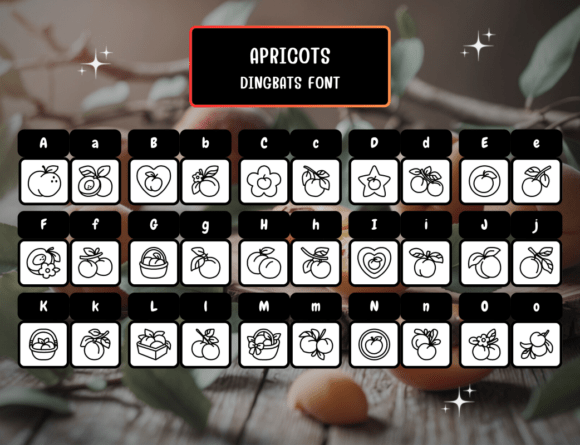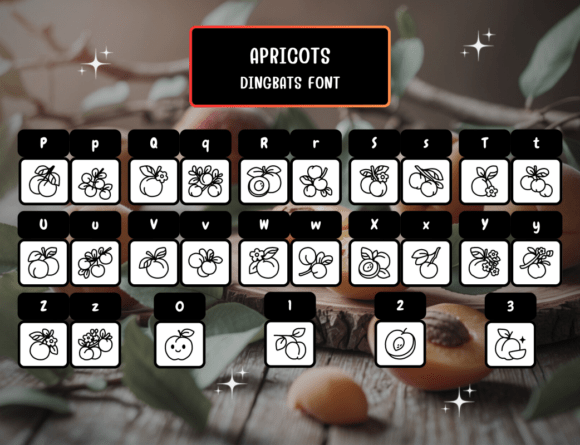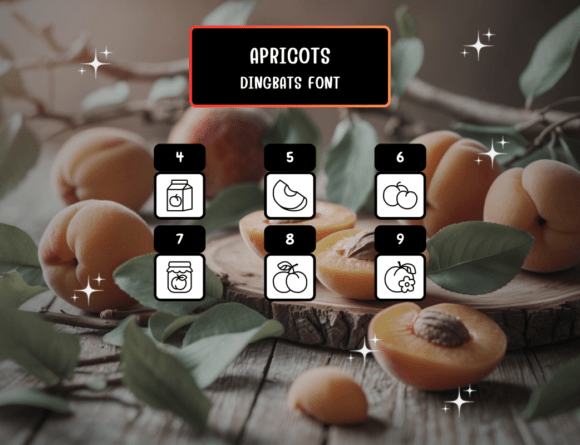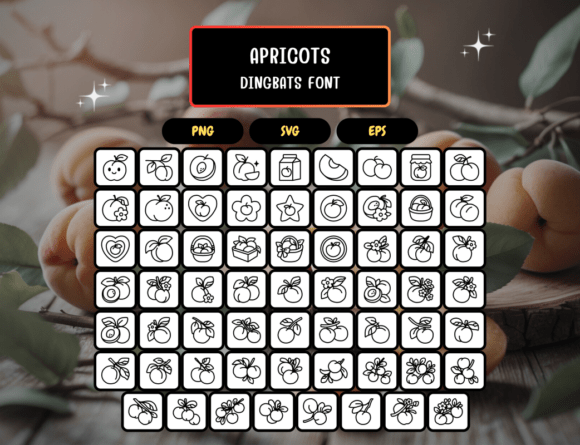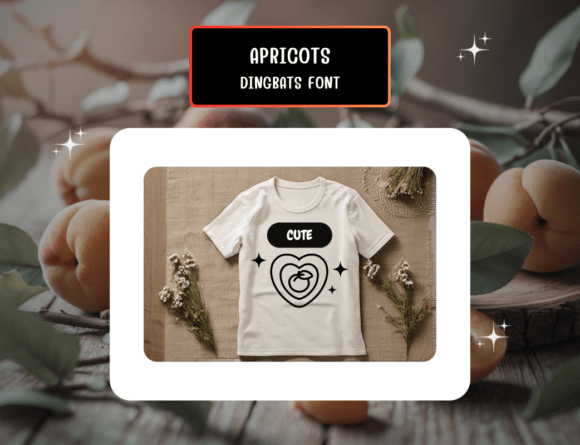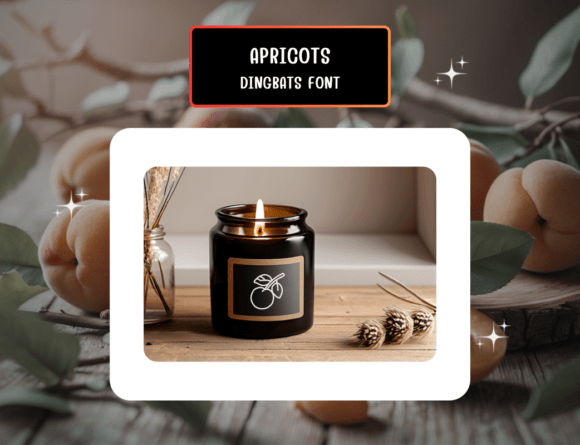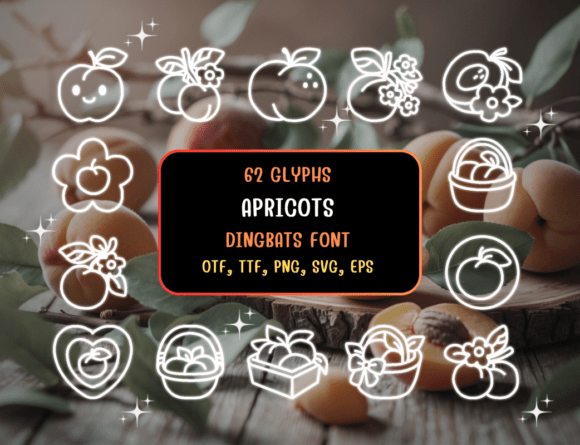
Apricots Font: A Charming Dingbats Font for Creative Projects
Are you looking for a unique and creative font to add a personal touch to your designs? Look no further than Apricots Font, a charming dingbats font filled with a variety of hand-drawn apricot illustrations. This delightful font is perfect for designers, crafters, and educators who want to add a warm and organic feel to their projects.
What is Apricots Font?
Apricots Font is a dingbats font that features a collection of hand-drawn apricot illustrations, each carefully crafted to give your designs a personal and whimsical touch. With this font, you can easily add a variety of apricot-themed illustrations to your projects, from labels and packaging to stickers, greeting cards, and educational materials.
Key Features of Apricots Font
- Easy to use: Each letter key types a different doodle, making it easy to add apricot illustrations to your designs.
- Hand-drawn illustrations: All illustrations are carefully hand-drawn to give a warm and organic feel to your designs.
- Variety of illustrations: The font includes a range of apricot illustrations, from simple to complex, giving you plenty of options for your designs.
How to Use Apricots Font
Apricots Font is easy to use and can be incorporated into a range of projects, including:
- Labels and packaging: Add a personal touch to your product labels or packaging with apricot illustrations.
- Stickers and washi tape: Create custom stickers and washi tape with apricot designs.
- Greeting cards and invitations: Add a whimsical touch to your greeting cards and invitations with apricot illustrations.
- Educational materials: Use apricot illustrations to create engaging and interactive educational materials, such as worksheets and activity sheets.
- Creative projects: Incorporate apricot illustrations into your creative projects, such as scrapbooking, mixed media art, and more.
Apricots Font is a charming dingbats font that’s perfect for designers, crafters, and educators who want to add a personal touch to their projects. With its hand-drawn apricot illustrations and easy-to-use design, this font is sure to inspire creativity and bring a warm and organic feel to your designs. So why wait? Purchase Apricots Font today and start creating your own unique and whimsical designs!